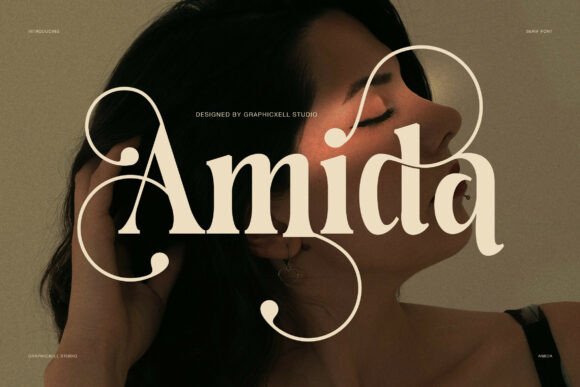
The Amida Font: Elevate Your Designs with Elegance and Charm
I’ll never forget the moment I stumbled upon the perfect font for a client’s branding project. It was like finding the missing piece to a puzzle – everything clicked into place, and the design came alive. For me, that font was Amida, an elegant ligature serif typeface that exudes beauty, charm, and a strong visual style. In this article, I’ll share my experience with Amida, its features, and how to make the most of it in your designs.
First Impressions: A Refined and Luxurious Feel
At first glance, Amida feels refined and luxurious, perfect for projects that require a touch of sophistication. However, it also brings a soft and expressive mood through its flowing swashes and graceful alternates. This blend of classic serif beauty with a fresh modern touch is what sets Amida apart from other fonts.
- ✨ Elegant ligature serif design that adds a touch of sophistication to any project
- ✅ Beautiful swashes and alternates that offer flexibility and creativity
- ✅ Strong visual style that’s perfect for branding, packaging, and editorial design
- ✨ Refined and luxurious feel that’s ideal for high-end projects
While Amida is an excellent font, there are a few things to keep in mind:
- ⚠️ Some swashes and alternates may not work well in smaller font sizes or at certain resolutions
- 🤔 Limited availability of certain OpenType features in certain software or platforms
Amida was designed with the intention of creating a font that blends classic elegance with modern charm. The designer aimed to craft a typeface that would be perfect for creators who want to add a touch of sophistication to their projects. With its beautiful swashes and alternates, Amida is sure to inspire your next design project.
Q: What is Amida font best used for?
A: Amida is versatile and can be used for a variety of projects, including branding, packaging, editorial design, and advertising.
Q: Is Amida a script font?
A: No, Amida is a ligature serif font with script-like swashes and alternates.